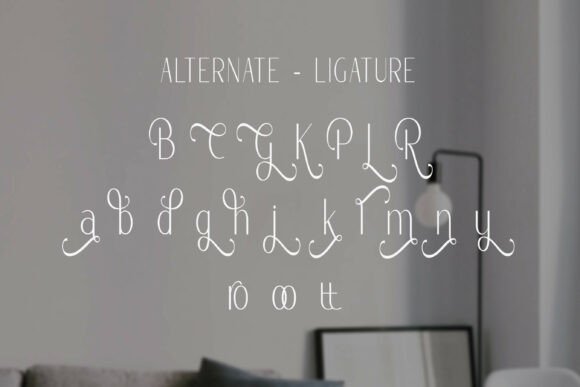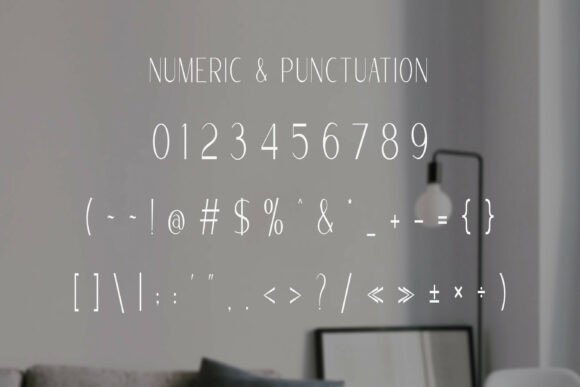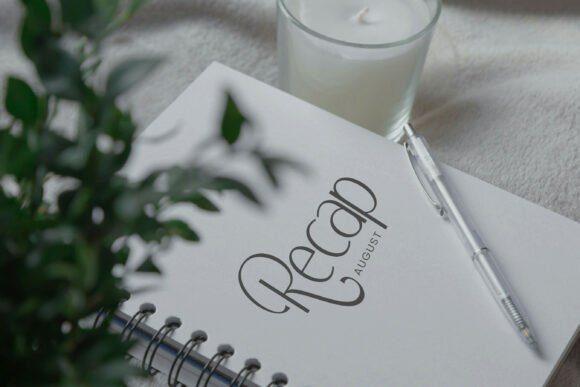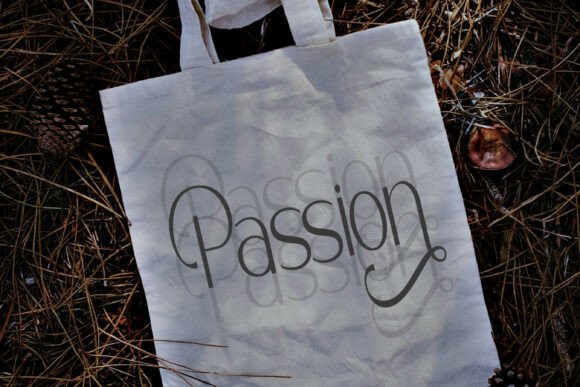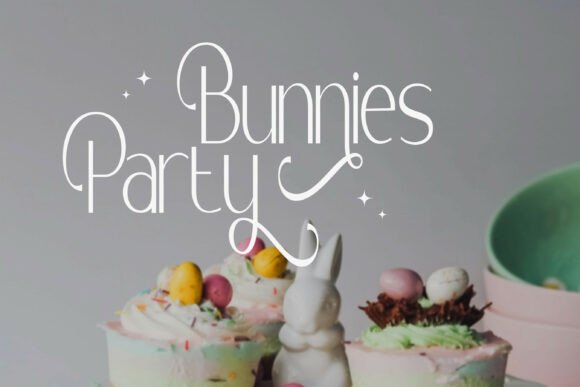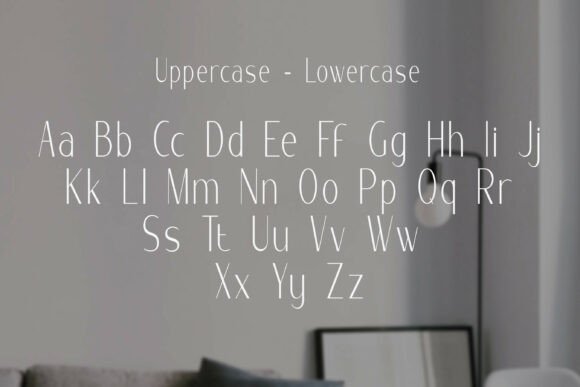
Introduction to Grade Roster Font
Grade Roster Font is a sleek sans serif font with beautiful alternates, offering a perfect blend of modern simplicity and artistic flair.
Its clean lines and versatile design make it suitable for branding, logos, editorial layouts, packaging, website headers, and stylish typography projects Elevate your designs with the contemporary elegance of the Grade Roster font.
Key Features of Grade Roster Font
Why Choose Grade Roster Font?
Grade Roster Font offers exceptional quality and versatility, making it a valuable addition to your design toolkit. Whether you’re creating for personal projects or commercial use, Grade Roster Font delivers professional results.